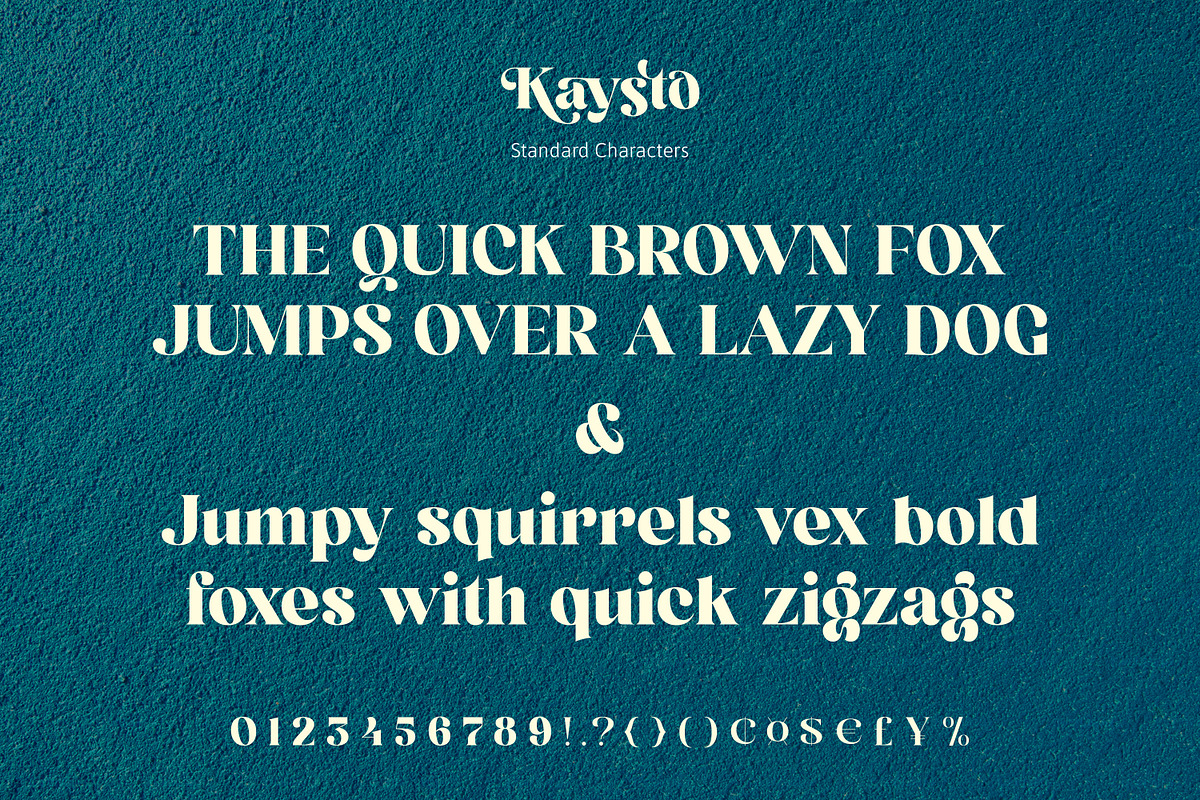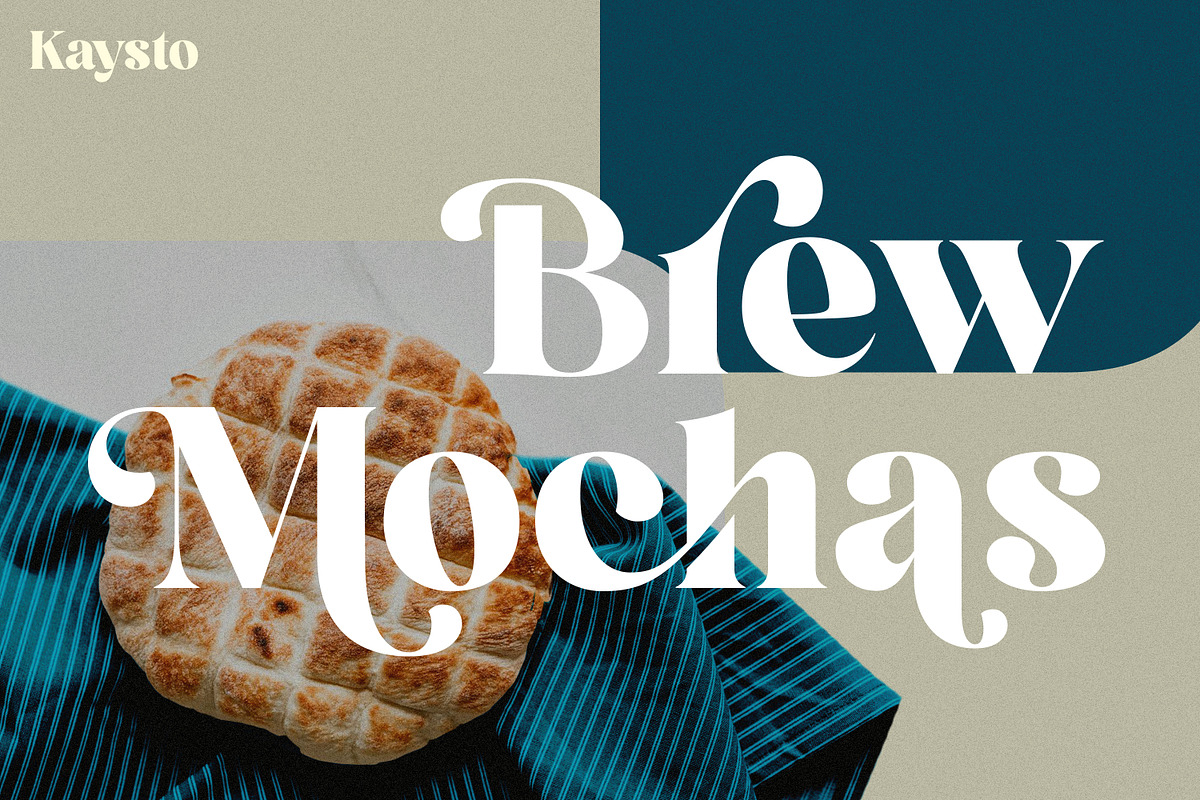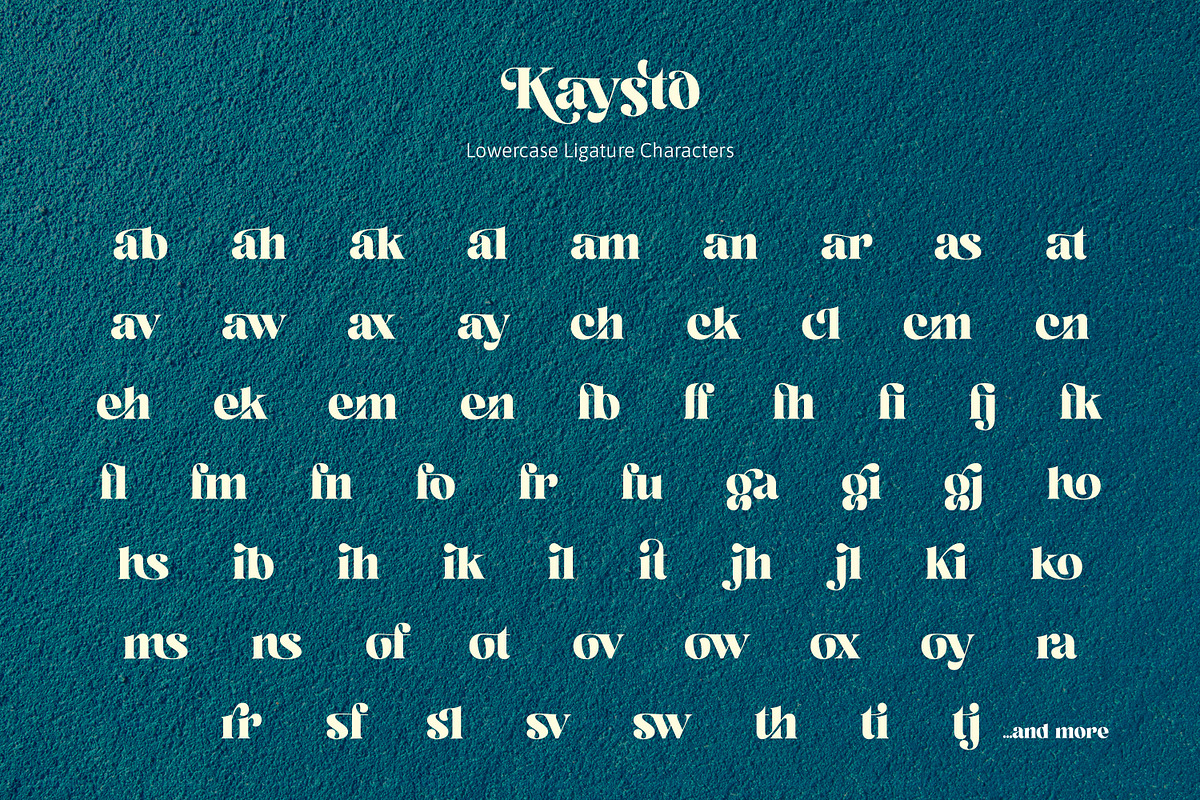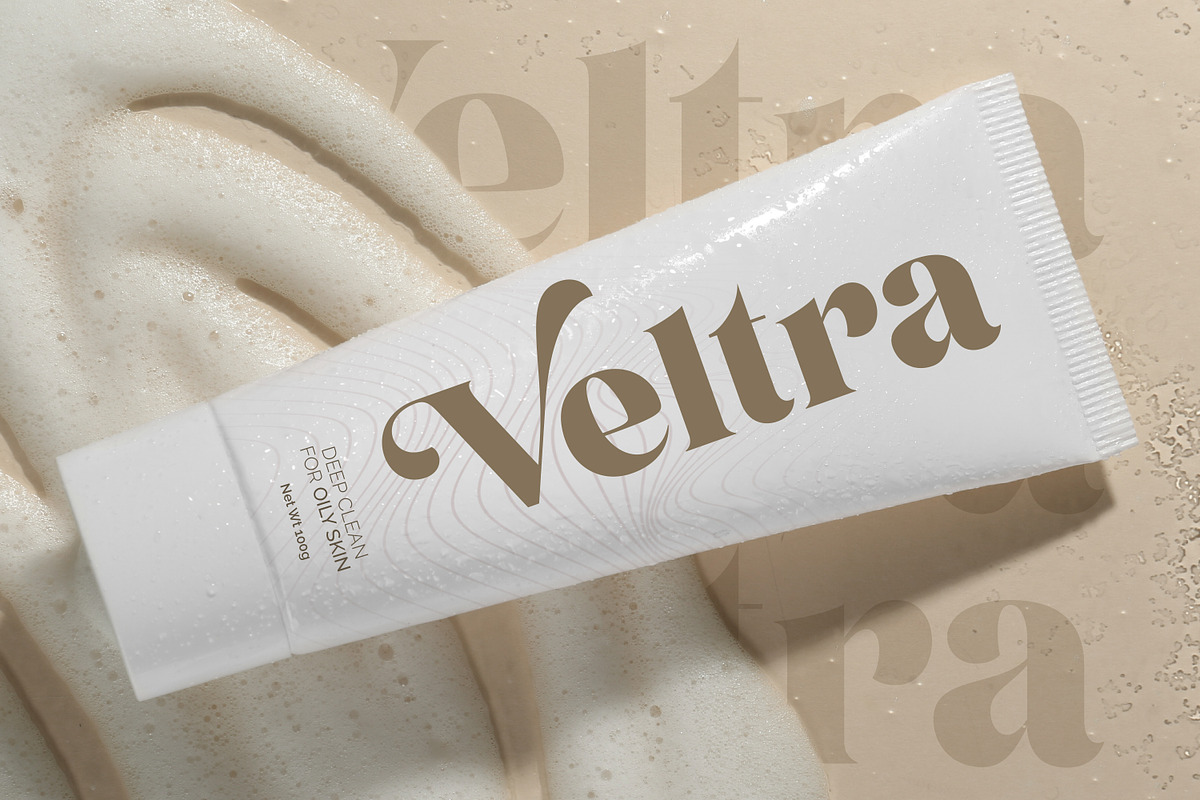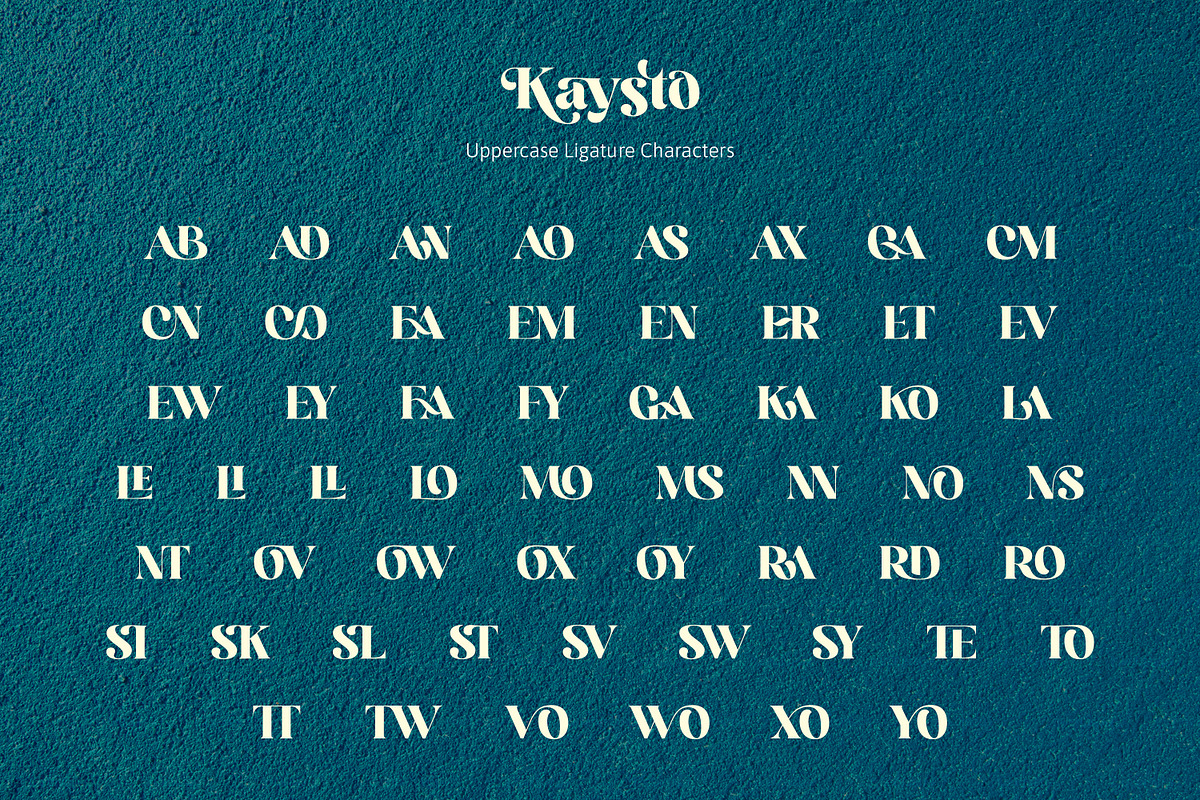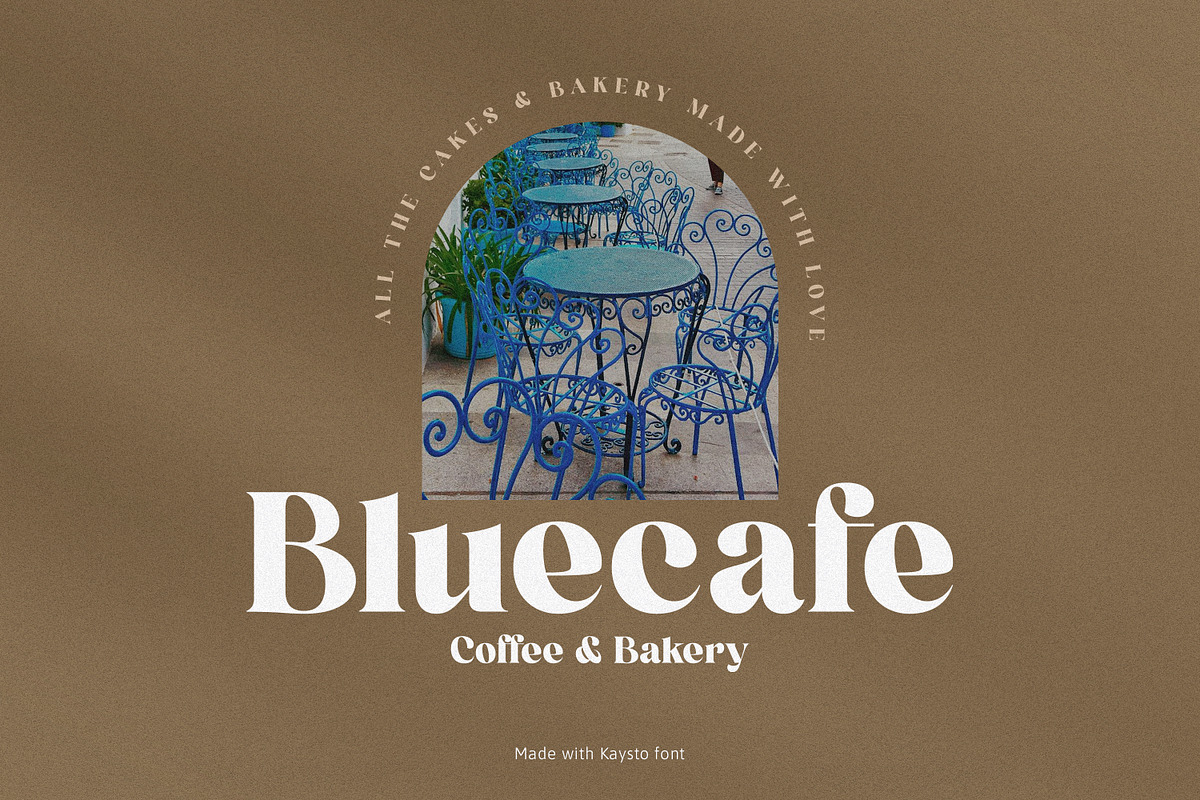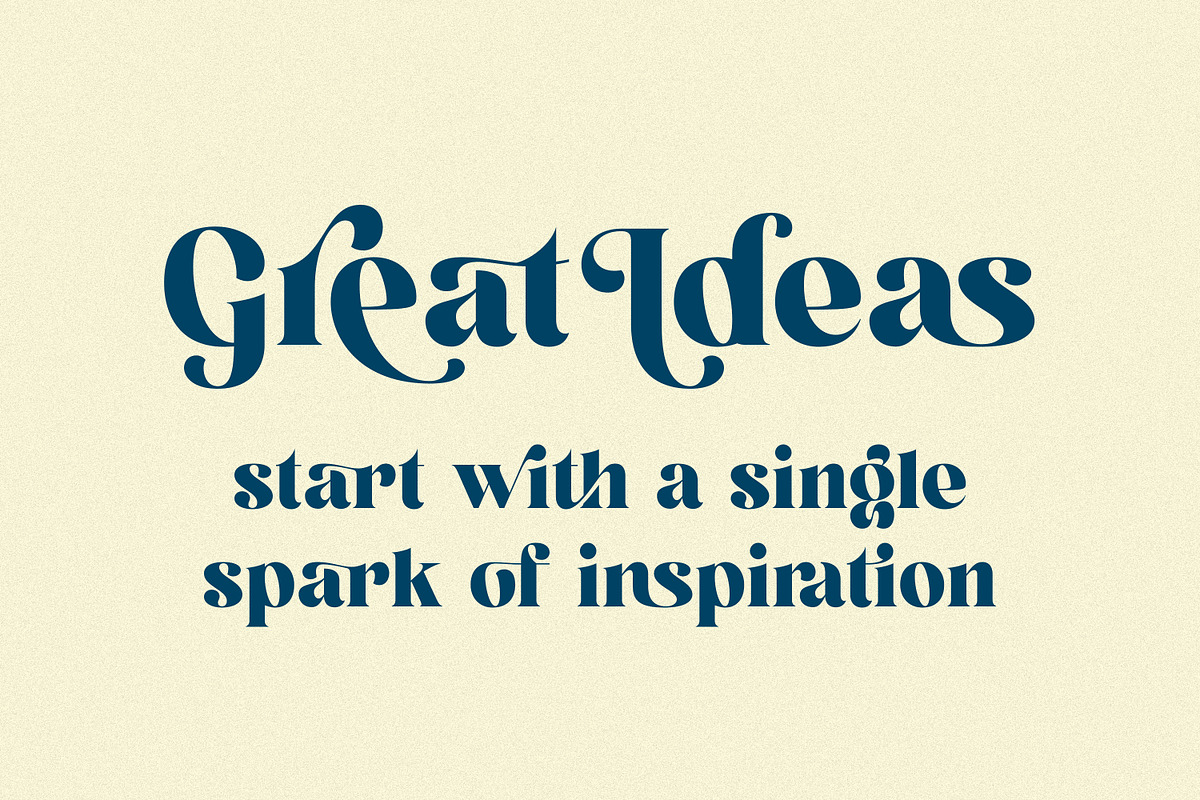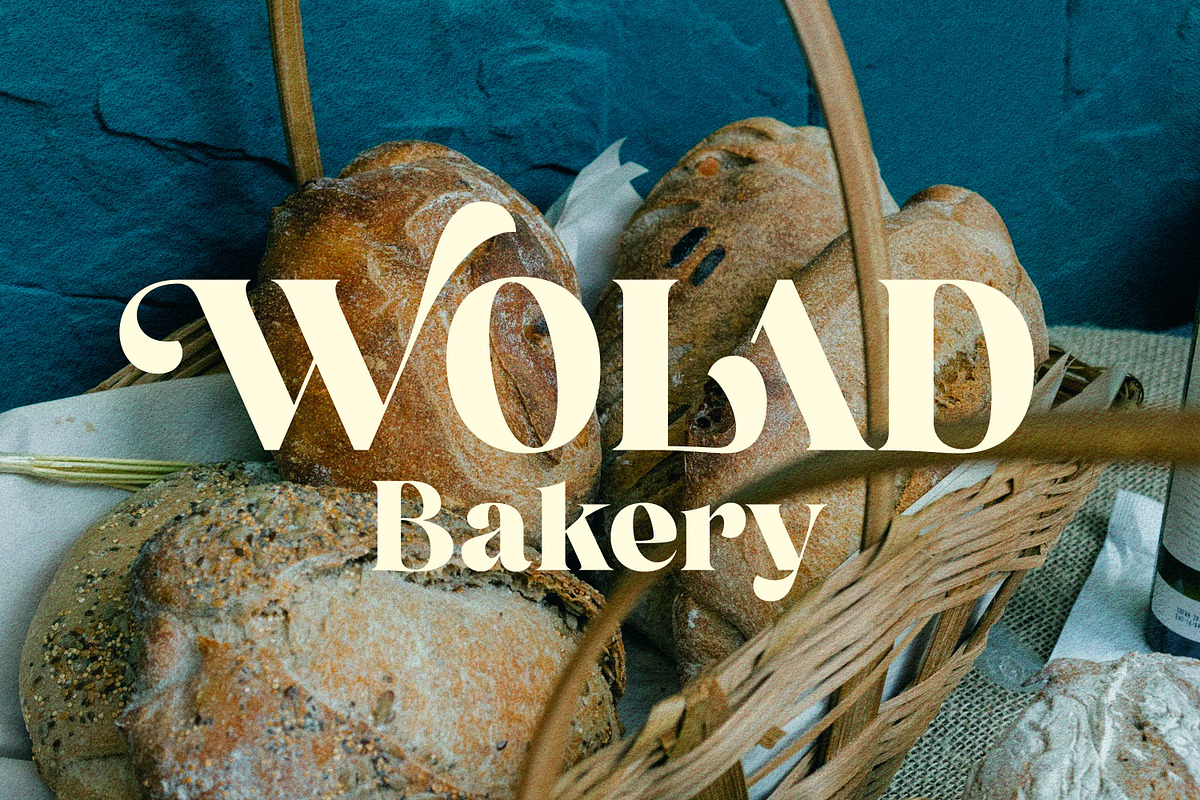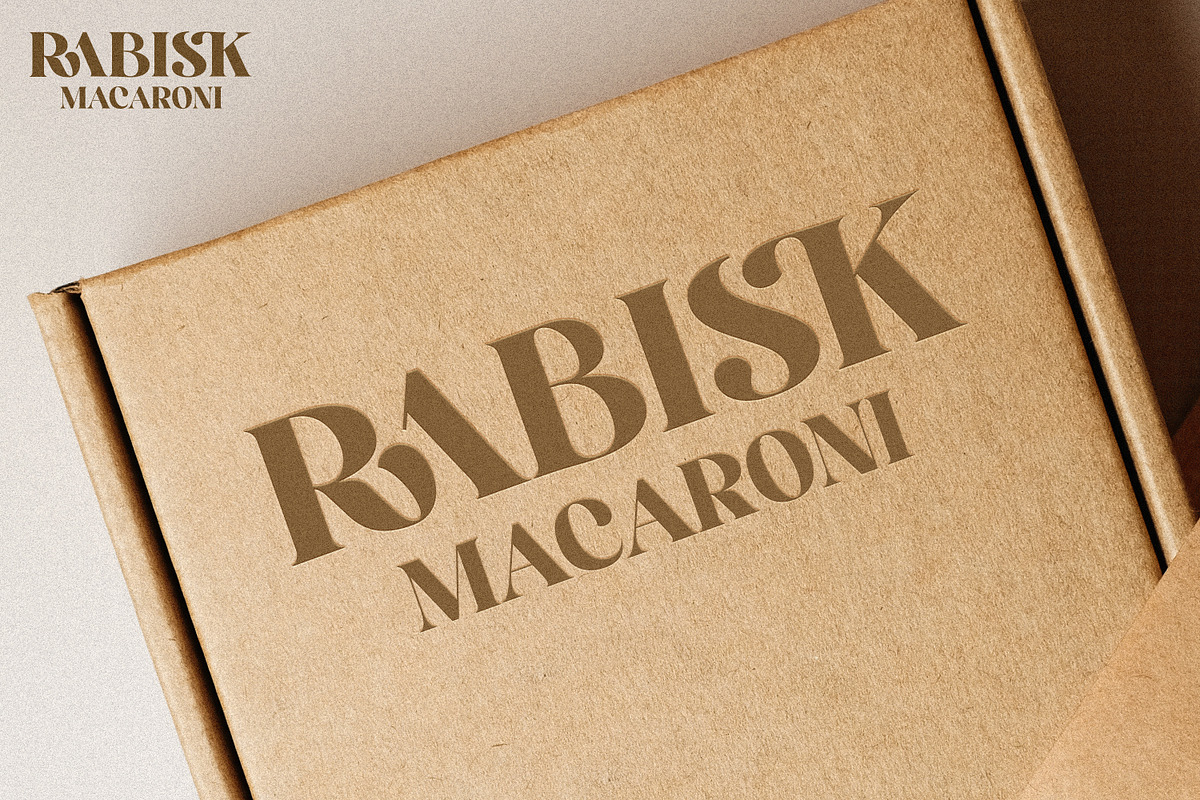
Kaysto - Serif Display Font
Kaysto, A Bold Serif Display Font with Endless Possibilities. Introducing Kaysto, a sophisticated serif display font designed to make an impression. With its unique blend of elegance and boldness, Kaysto is perfect for headlines, branding, logos, and any design that needs a touch of classic charm with a modern twist. Kaysto comes with a rich set of alternative and ligature characters, giving you complete flexibility to customize your design. Whether you’re working on vintage-inspired projects, contemporary branding, or creative typography, Kaysto’s versatile characters allow you to create standout designs with ease. Elevate your design projects with Kaysto, a font that blends timeless elegance with modern creativity.